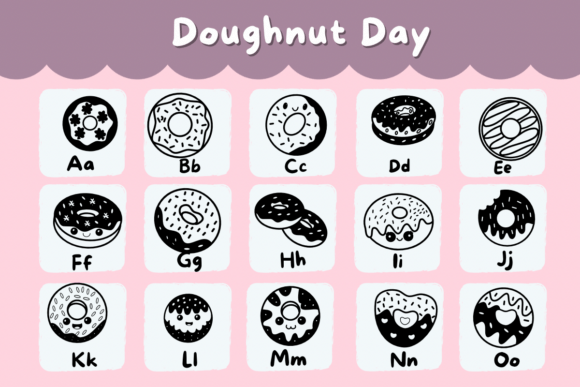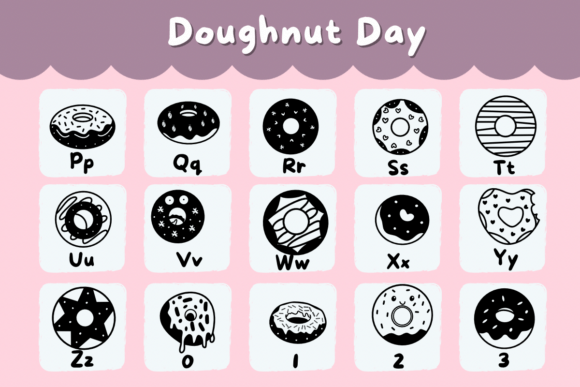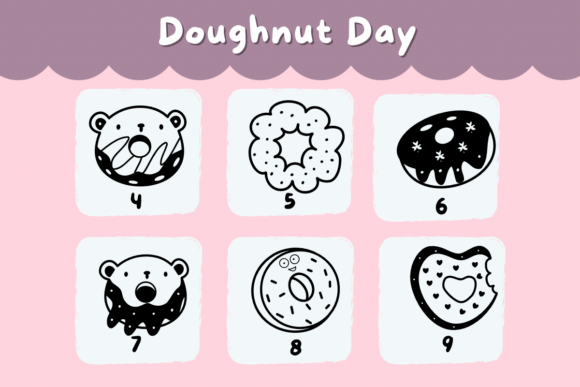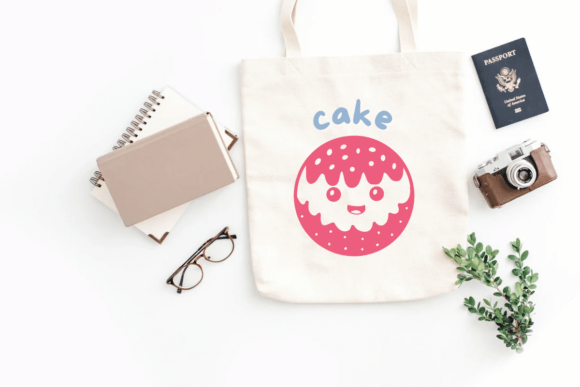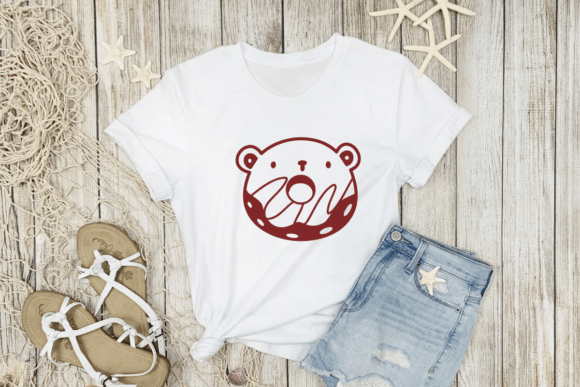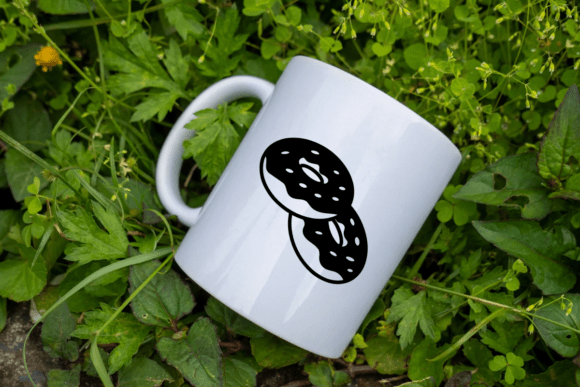
Doughnut Day Font: The Sweetest Way to Add Fun to Your Designs
Are you looking for a font that can add a touch of whimsy and playfulness to your designs? Look no further than the Doughnut Day Font! This delightful dingbat font is packed with delicious dessert-themed doodles that are sure to make your designs feel like a celebration. In this article, we’ll take a closer look at the Doughnut Day Font and explore its many uses, from party invitations to dessert shop branding.
What is the Doughnut Day Font?
The Doughnut Day Font is a unique and charming dingbat font that features a collection of dessert-themed illustrations. From frosted classics to heart-shaped treats, this font is filled with adorable doodles that are sure to delight designers and crafters of all ages. With its sweet and playful design, the Doughnut Day Font is perfect for anyone looking to add a touch of fun and whimsy to their designs.
Uses for the Doughnut Day Font
The Doughnut Day Font is incredibly versatile and can be used in a variety of design applications. Here are just a few ideas to get you started:
- Party Invitations: Create adorable party invitations that set the tone for a fun and festive celebration. Use the Doughnut Day Font to add illustrations of cupcakes, ice cream cones, and other sweet treats to your invitations.
- Dessert Shop Branding: Use the Doughnut Day Font to create eye-catching branding for your dessert shop or bakery. From logos to menus, this font is sure to make your business stand out.
- Kid-Friendly Menus: Create fun and engaging menus for kids with the Doughnut Day Font. This font is perfect for illustrating kid-friendly foods like pizza, ice cream, and of course, doughnuts!
- Whimsical Packaging: Add a touch of whimsy to your product packaging with the Doughnut Day Font. Use this font to create adorable labels and packaging that will make your products stand out on store shelves.
Features of the Doughnut Day Font
The Doughnut Day Font is more than just a collection of cute illustrations – it’s also a fully functional font with a range of features that make it easy to use. Here are just a few of the features that make the Doughnut Day Font so special:
- Delicious Illustrations: The Doughnut Day Font features a wide range of dessert-themed illustrations, from classic frosted doughnuts to heart-shaped treats.
- Playful Design: The Doughnut Day Font has a playful and whimsical design that’s perfect for adding a touch of fun to your designs.
- Easily Customizable: The Doughnut Day Font is easily customizable, allowing you to adjust the size, color, and style to fit your design needs.
Tips for Using the Doughnut Day Font
Here are a few tips for getting the most out of the Doughnut Day Font:
- Mix and Match: Don’t be afraid to mix and match different illustrations from the Doughnut Day Font to create a unique and eye-catching design.
- Experiment with Color: The Doughnut Day Font looks great in a range of colors, so don’t be afraid to experiment and find the perfect color scheme for your design.
- Use it with Other Fonts: The Doughnut Day Font pairs well with a range of other fonts, so feel free to get creative and experiment with different font combinations.